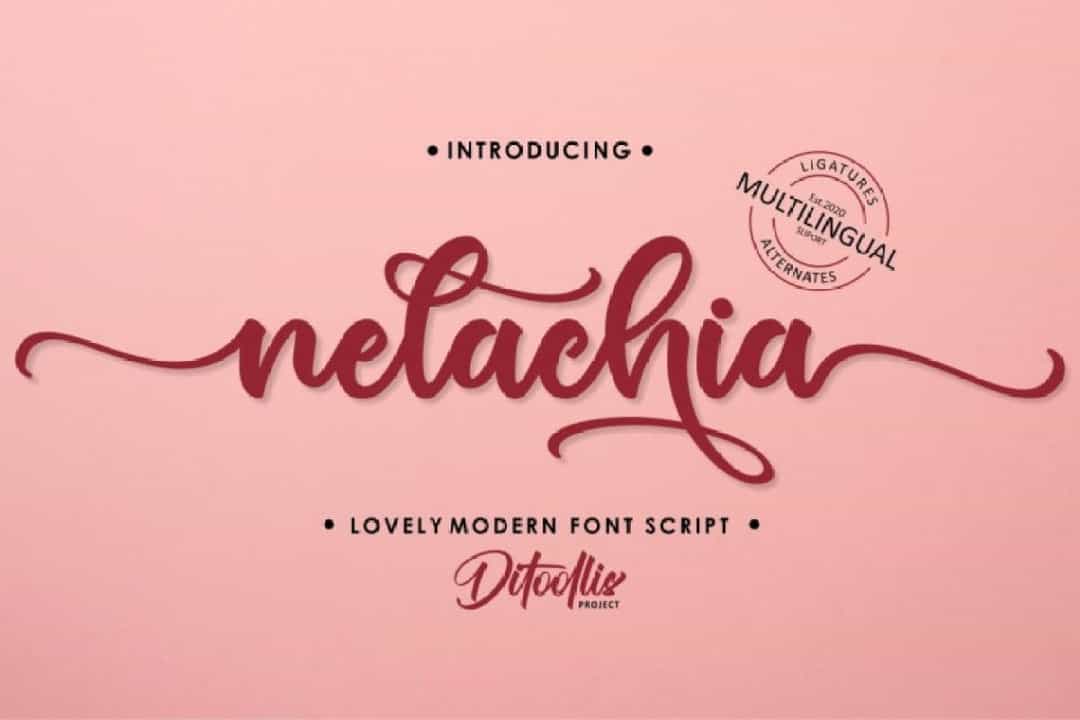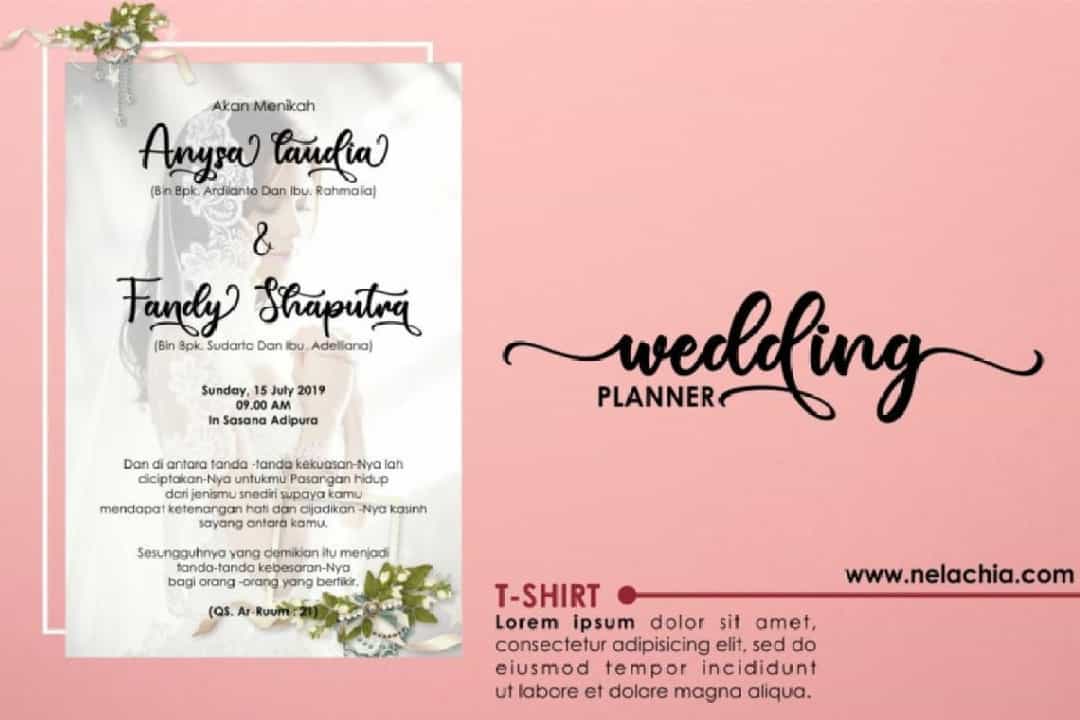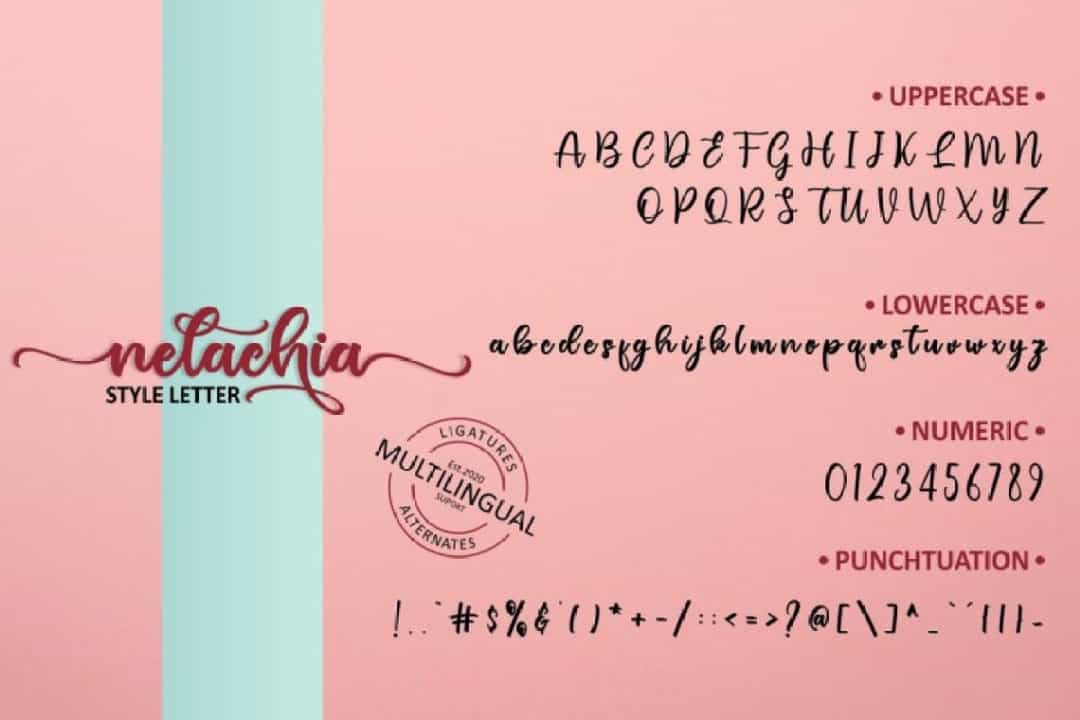
Nelachia is a calligraphy font with Script like feel which is perfect for designing new and creative projects. This beautiful font will make every aspect of your creation to have natural look which is great for invitation designs, logo creation, book cover designing and many other projects.